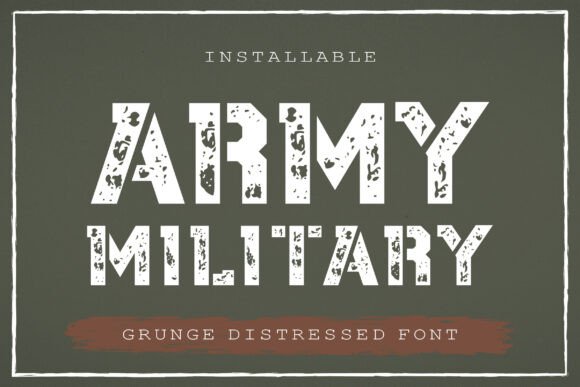
The Ultimate Guide to Army Military Font: Deploying a Rugged Aesthetic
I’ll never forget the design project that led me to discover the Army Military font. I was working on a branding campaign for a tactical gear company, and I needed a font that could convey a sense of strength, resilience, and boldness. After hours of searching, I stumbled upon Army Military, and it was love at first sight. The font’s rugged aesthetic and industrial stencil cuts immediately caught my attention, and I knew I had found the perfect fit for my project.
- ✅ Unique and bold design: Army Military’s massive, blocky letterforms and rhythmic stencil cuts make it stand out from other fonts.
- ✅ Heavily distressed texture: The font’s grunge texture gives it a weathered, field-ready look that’s perfect for tactical gear branding and historical documentaries.
- ✅ High-impact headers: Army Military is perfect for creating attention-grabbing social media headers that exude confidence and authority.
Small Quirks and Limitations ⚠️
- 🤔 Limited use cases: While Army Military is perfect for certain projects, it may not be the best fit for more elegant or sophisticated designs.
- ⚠️ Legibility at small sizes: Due to its distressed texture and stencil cuts, Army Military may be difficult to read at very small font sizes.
The Army Military font was inspired by the rugged, industrial aesthetic of military equipment and gear. The designer wanted to create a font that captured the essence of strength, resilience, and boldness, while also paying homage to the military’s rich history and tradition.
| Font Name | Army Military Font |
| Author | turz74347 |
Q: What is the Army Military font?
A: The Army Military font is a stencil typeface designed to capture a bold, rugged aesthetic.
Q: What is the best use case for Army Military?
A: Army Military is perfect for tactical gear branding, historical documentaries, fitness bootcamp identities, and high-impact social media headers.